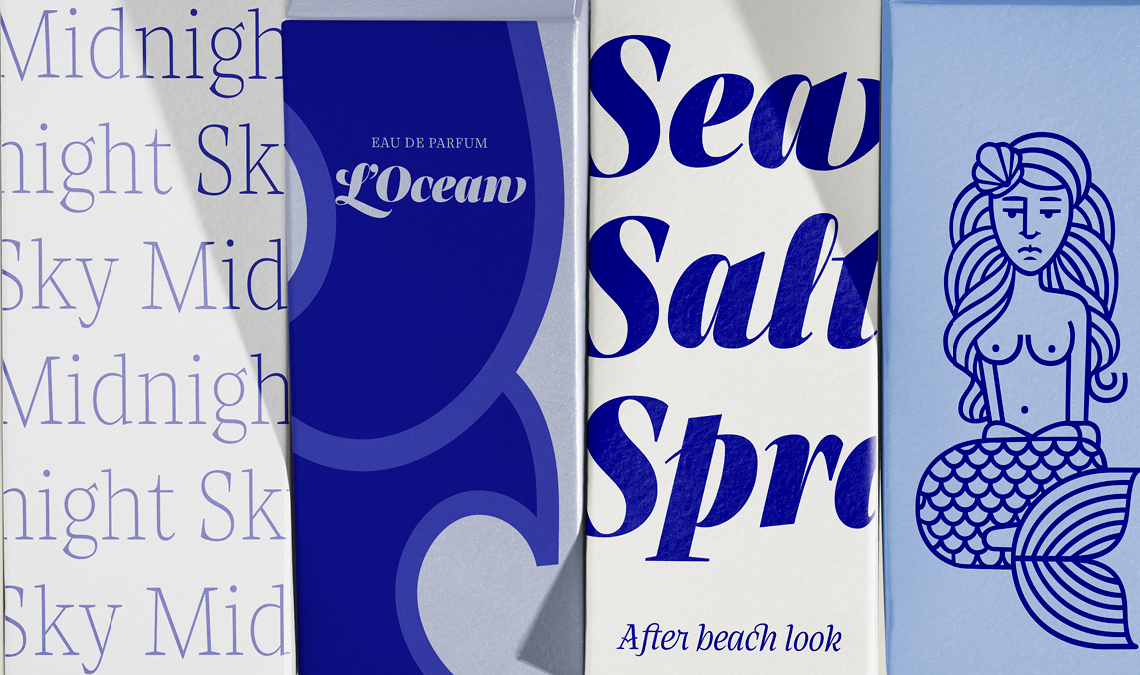
Atlante in motion
Atlante: unrestricted by tradition, blended for discerning tastes. An excessive, emotional, yet conventional serif for text and display. Designed by Yorlmar Campos and Martín Sesto.
Emotional typefaces are hard to come by in the ‘serious serif’ category. Atlante fills this need with display and text versions, a tenacious italic, and more swashes, alternates, and ligatures than the average font family considers having. Conventional but excessive in all the best ways.
Atlante includes a total of 36 static fonts in two optical sizes (display and text), each of them with nine uprights and matching italics, as well as cursive alternates and swashes, ornaments, and textures.